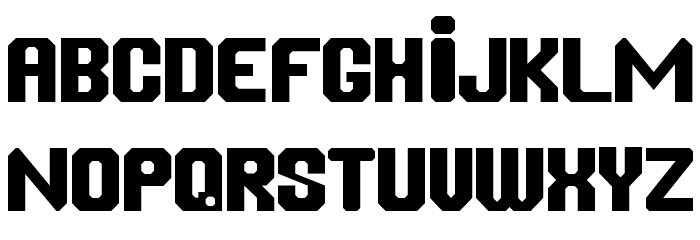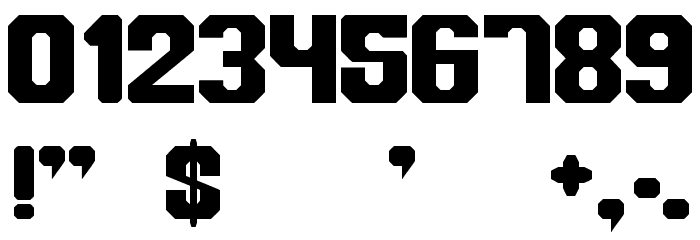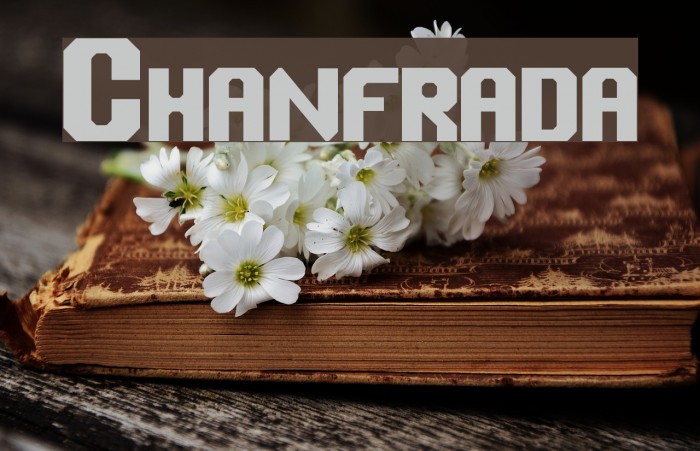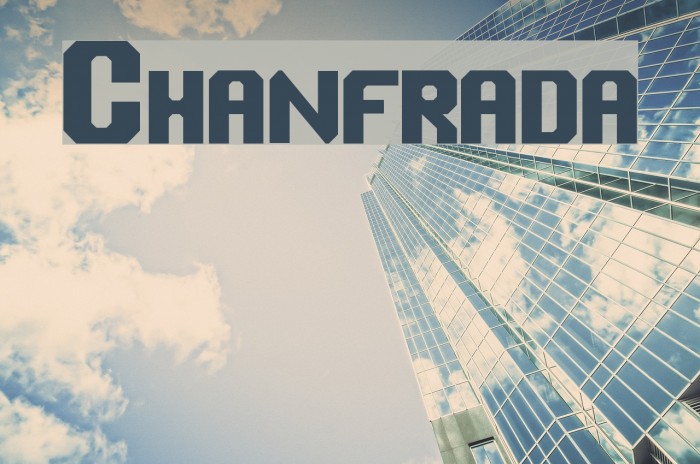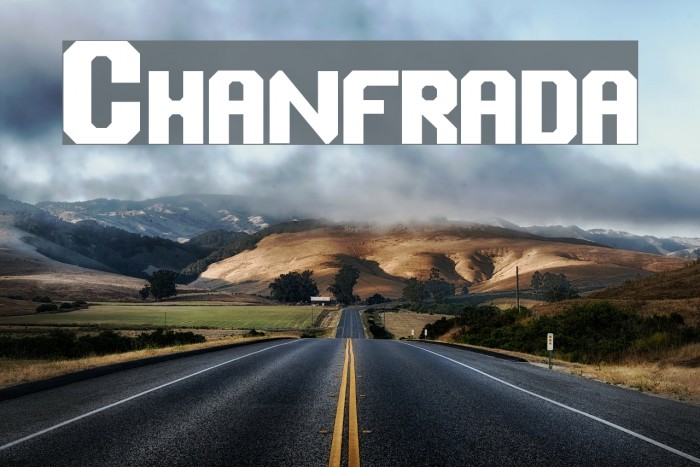
Chanfrada Font
This font features a bold and geometric style with a strong presence, characterized by its blocky and angular letterforms. The uppercase and lowercase letters maintain a consistent width, creating a uniform appearance. The numbers and special characters follow the same bold and structured design, making them easily legible. The font's sharp edges and solid construction give it a modern and industrial feel, suitable for projects that require a strong visual impact. Its distinct style makes it ideal for headlines, posters, and branding materials where a commanding and contemporary look is desired.
A bold, geometric font with angular letterforms and a modern, industrial style.
- Proposed Projects: Ideal for headlines, posters, branding materials, and any project needing a strong visual impact.